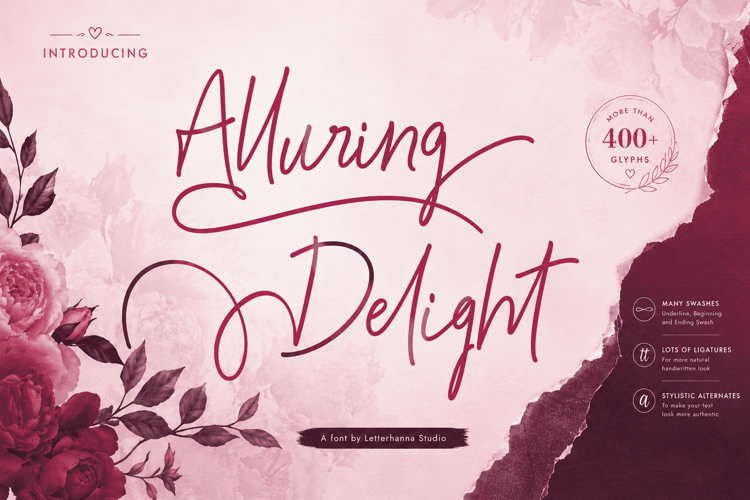
Alluring Delight Font | Feminine Elegant Swash Luxury Script
She picked up a pen and wrote her name — and somehow, it looked like poetry. That's the feeling behind Alluring Delight, a handwritten script font crafted to feel genuine, warm, and deeply individual.
Designed with obsessive attention to natural flow, this font includes 55+ ligatures, elegant swash variations, stylistic alternates, and ornamental extras that make every composition feel one-of-a-kind.
Perfect for wedding suites, feminine branding, product labels, social content, and anywhere beauty matters.